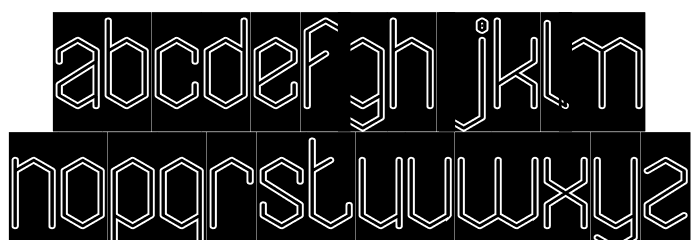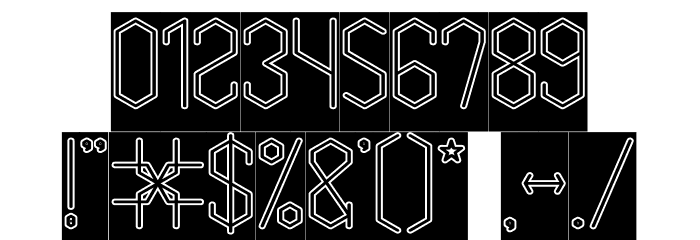
LOIS CESARANO-Hollow Bold Font
This font features a unique hollow design with a bold, geometric structure. Each character is outlined, creating a striking visual effect that emphasizes its modern and futuristic style. The angular lines and consistent stroke width give it a technical and structured appearance, making it stand out in any design. The uppercase and lowercase letters maintain a uniform height, while the numerals and special characters complement the overall aesthetic with their cohesive design. This font is ideal for projects that require a bold statement and a contemporary look.
A bold, hollow, geometric font with a modern and futuristic style.
- Font: LOIS CESARANO-Hollow Bold
- Proposed Projects: Ideal for tech branding, futuristic posters, digital artwork, and modern advertising.